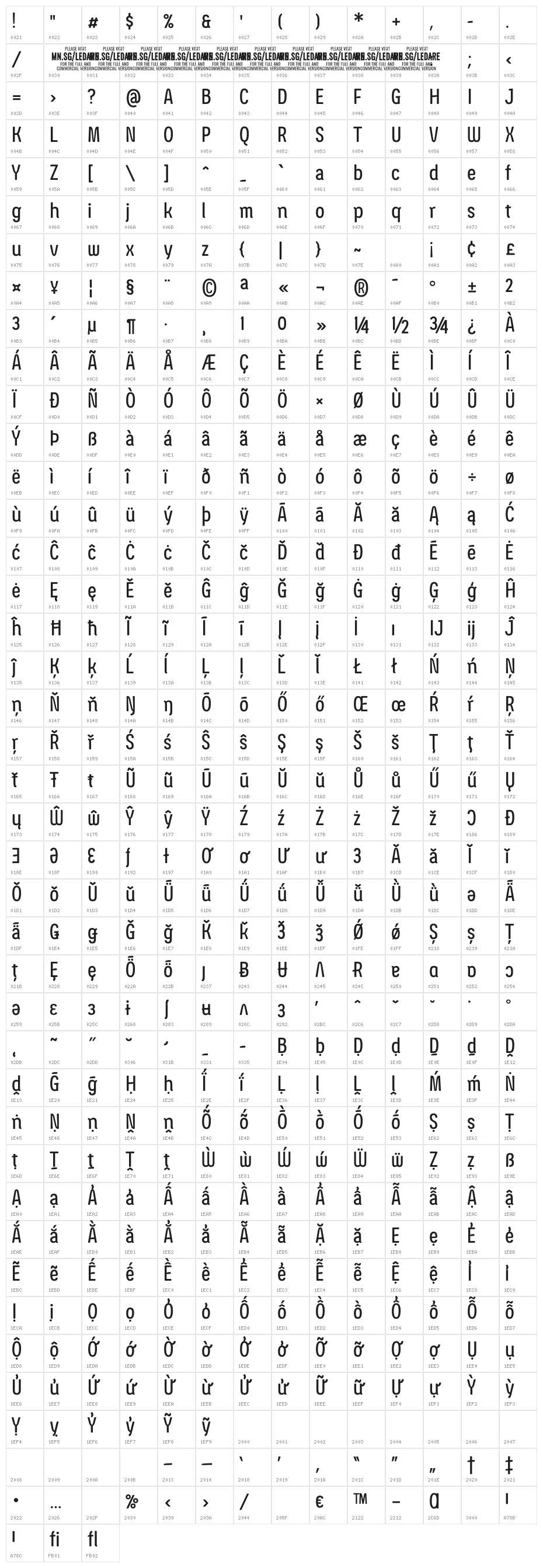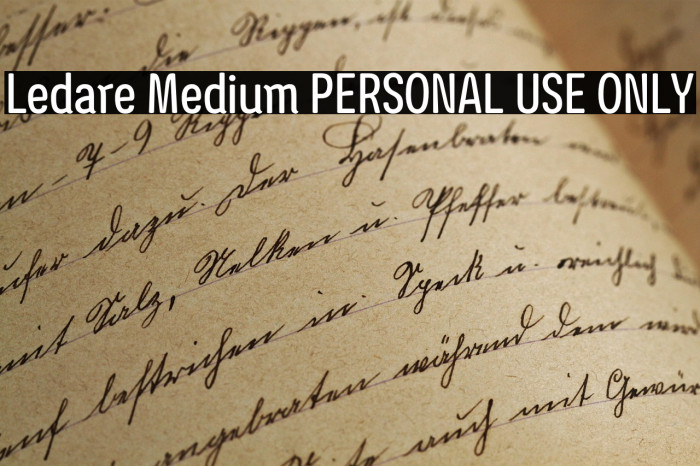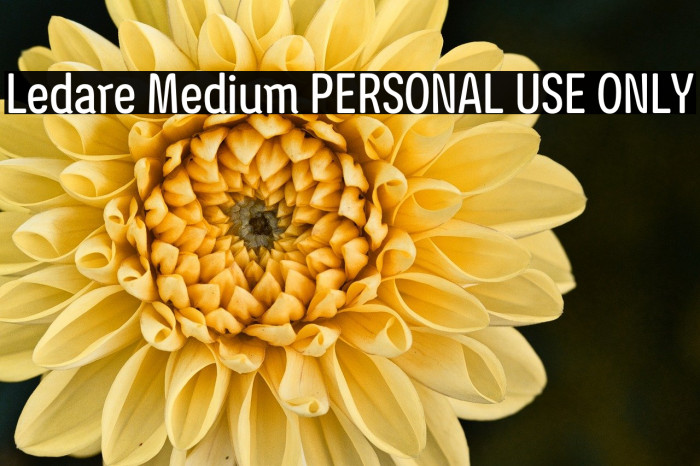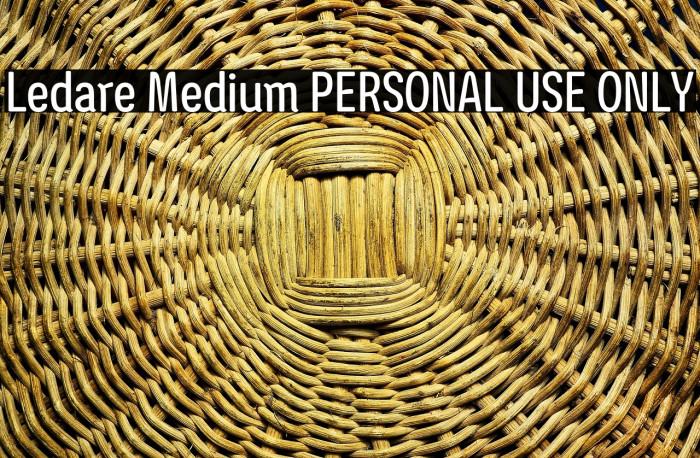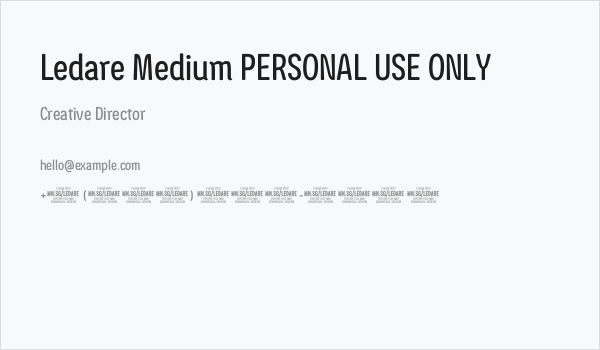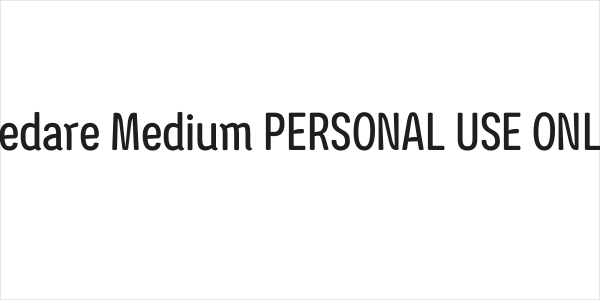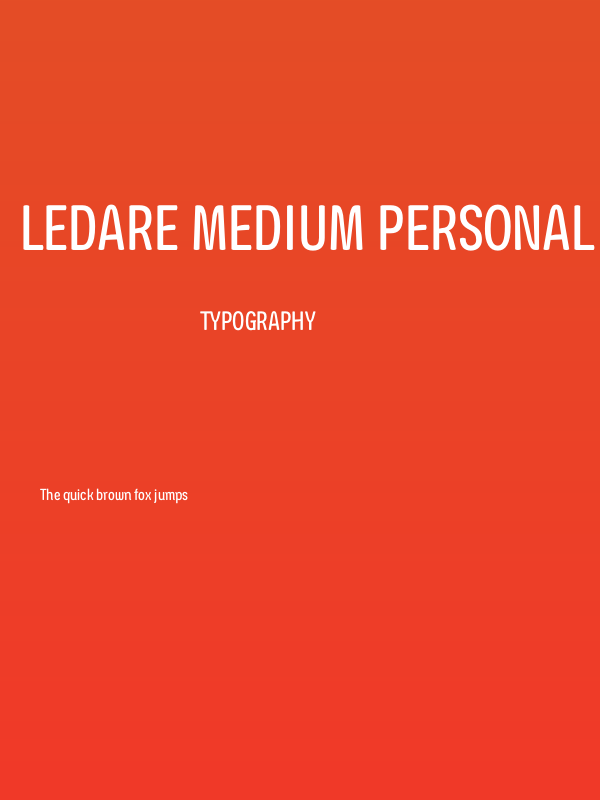
Ledare Medium PERSONAL USE ONLY Font
Ledare Medium PERSONAL USE ONLY Description
This font features a clean and modern sans-serif style with a medium weight, offering a balanced appearance suitable for various design needs. The characters are well-proportioned, with a slightly condensed width that enhances readability while maintaining a sleek aesthetic. The uppercase and lowercase letters are distinct, with rounded edges that soften the overall look. The numerals and special characters are consistent in style, ensuring uniformity across different text elements. This font is versatile, making it ideal for both digital and print media.
| Proposed Projects | Ideal for branding, web design, advertising, and editorial layouts due to its modern and versatile appearance. |